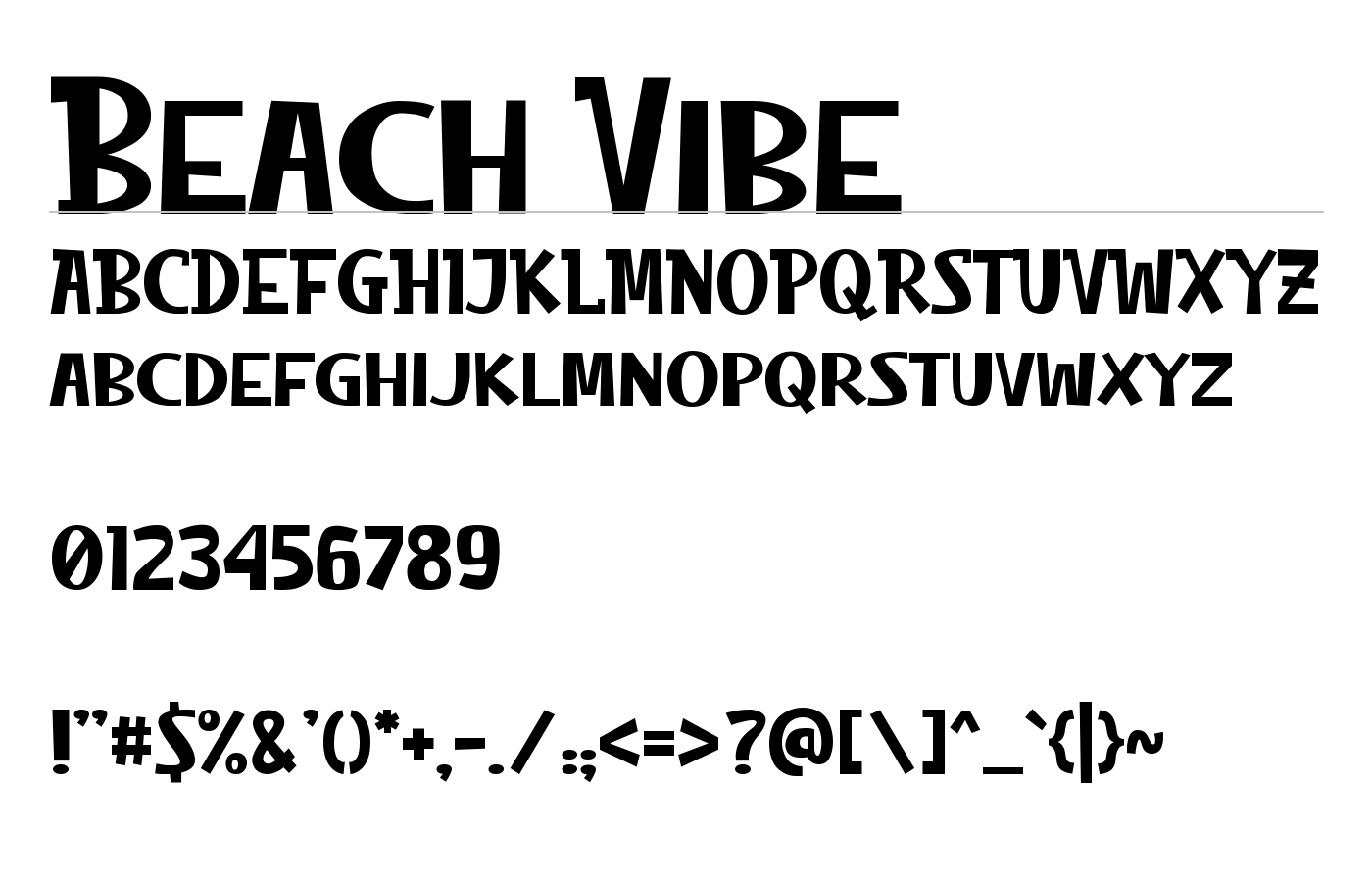
Beach Vibe Font is a playful, bold sans serif with an informal, hand-crafted feel that perfectly captures a fun, tropical spirit. Its slightly irregular letter shapes and varied stroke widths create a lively, energetic look ideal for casual branding, beach-themed designs, and youthful headlines. This font works best in eye-catching logos, posters, and packaging where a vibrant, friendly personality is key.
Beach Vibe Font
About Beach Vibe Font
| Font family | Beach Vibe Font |
| Designer | Sahirul Puguh |